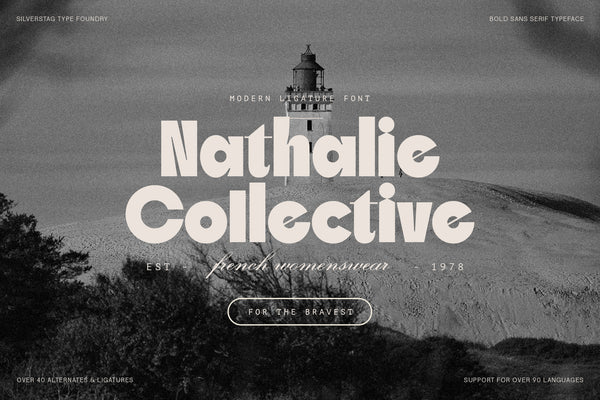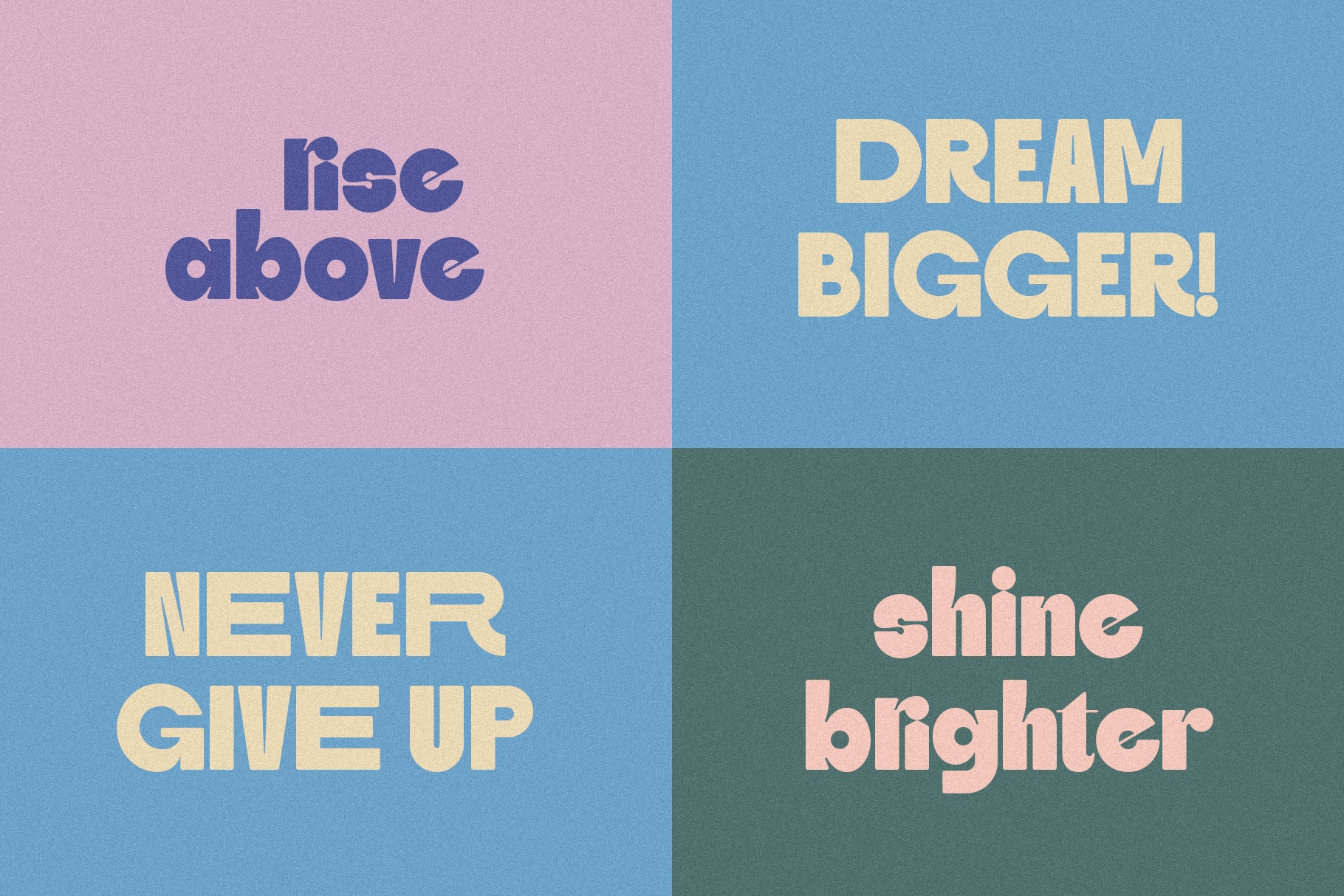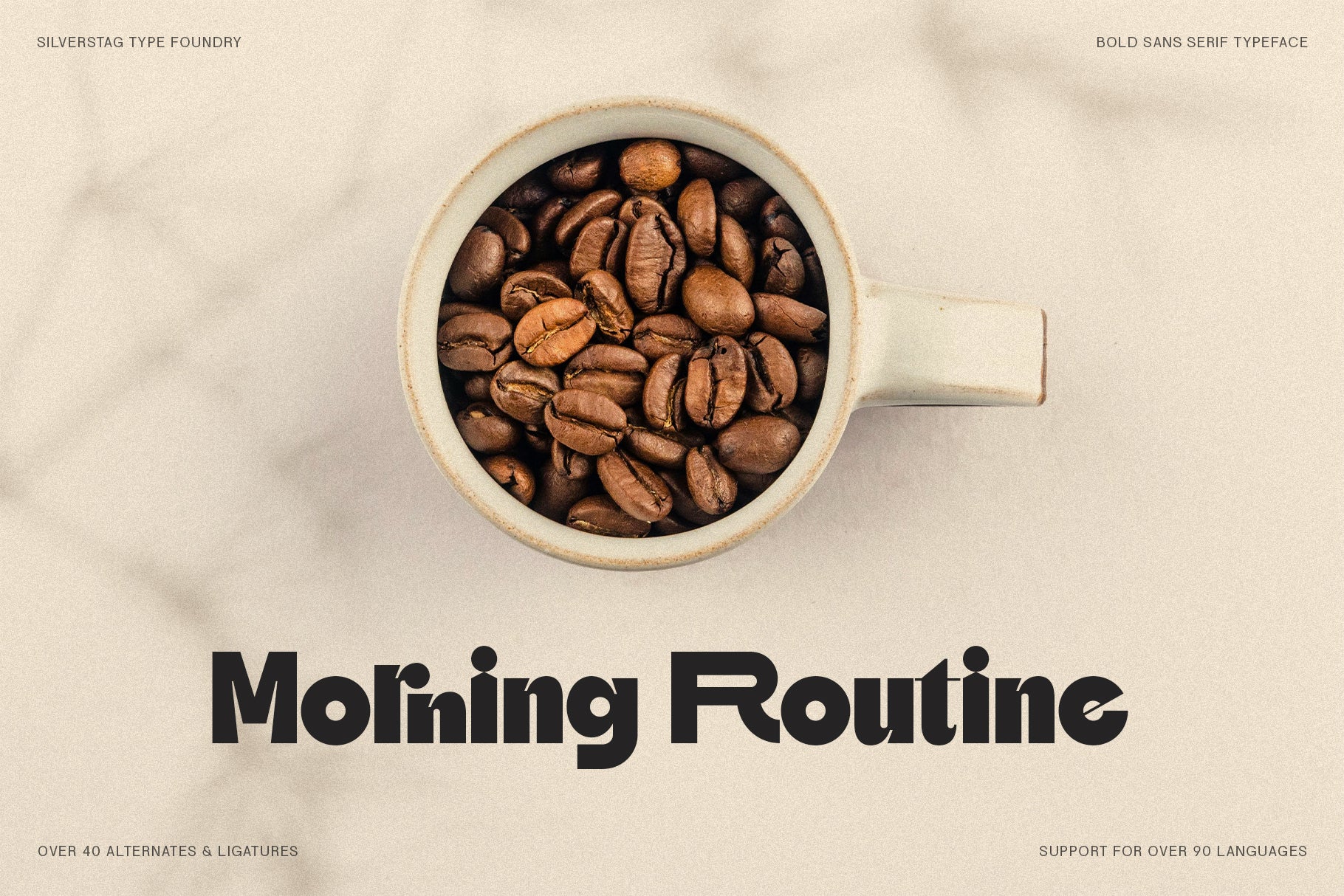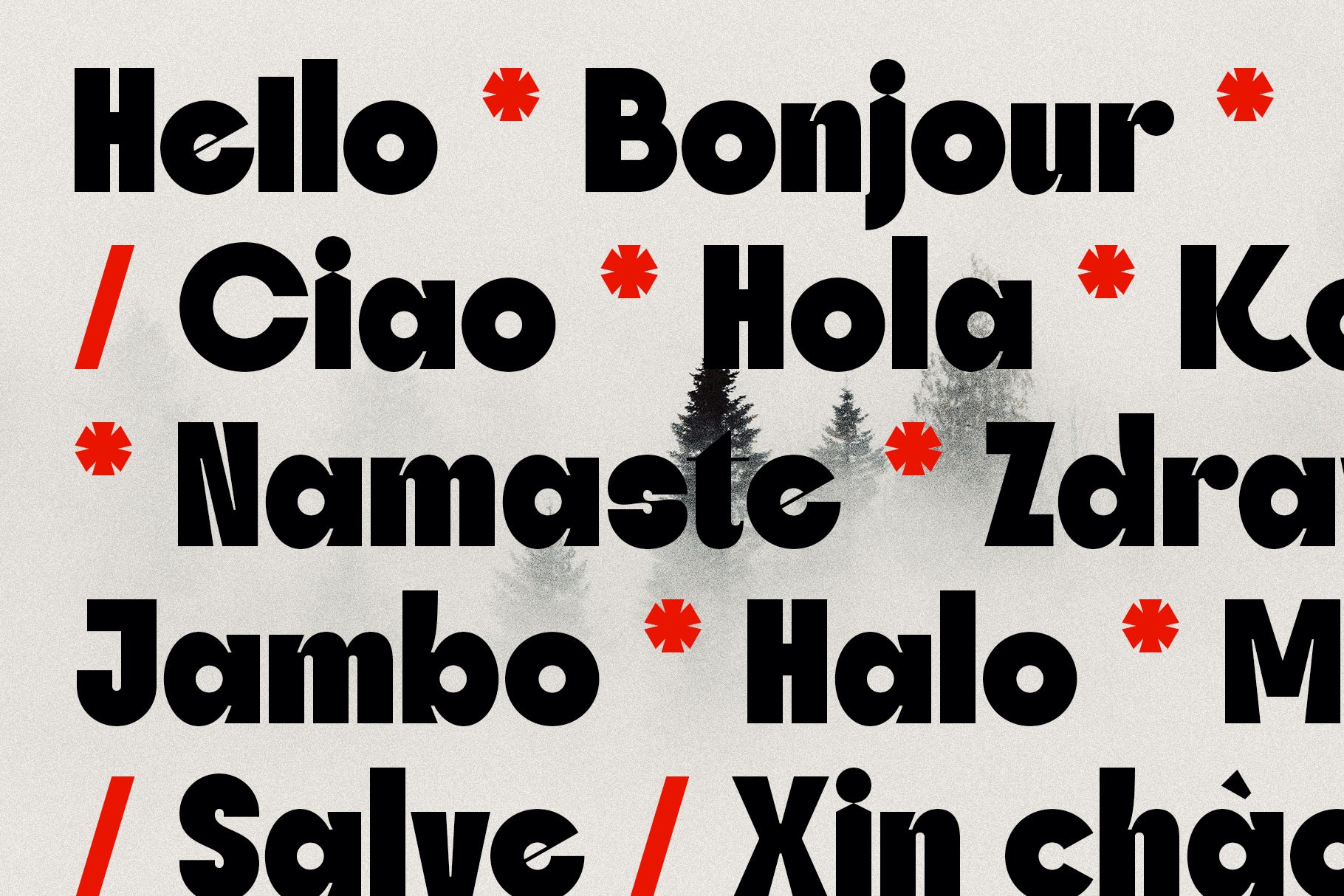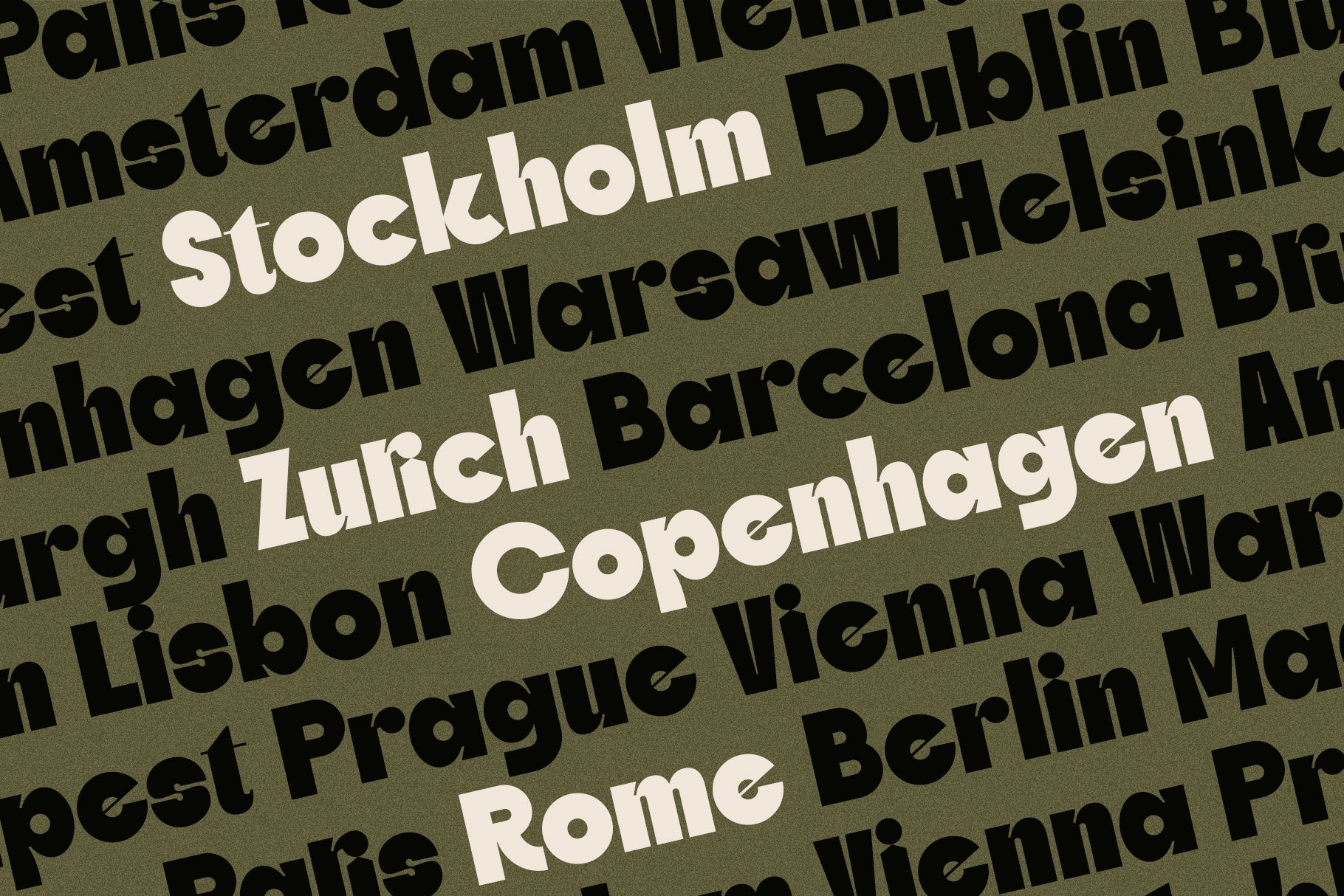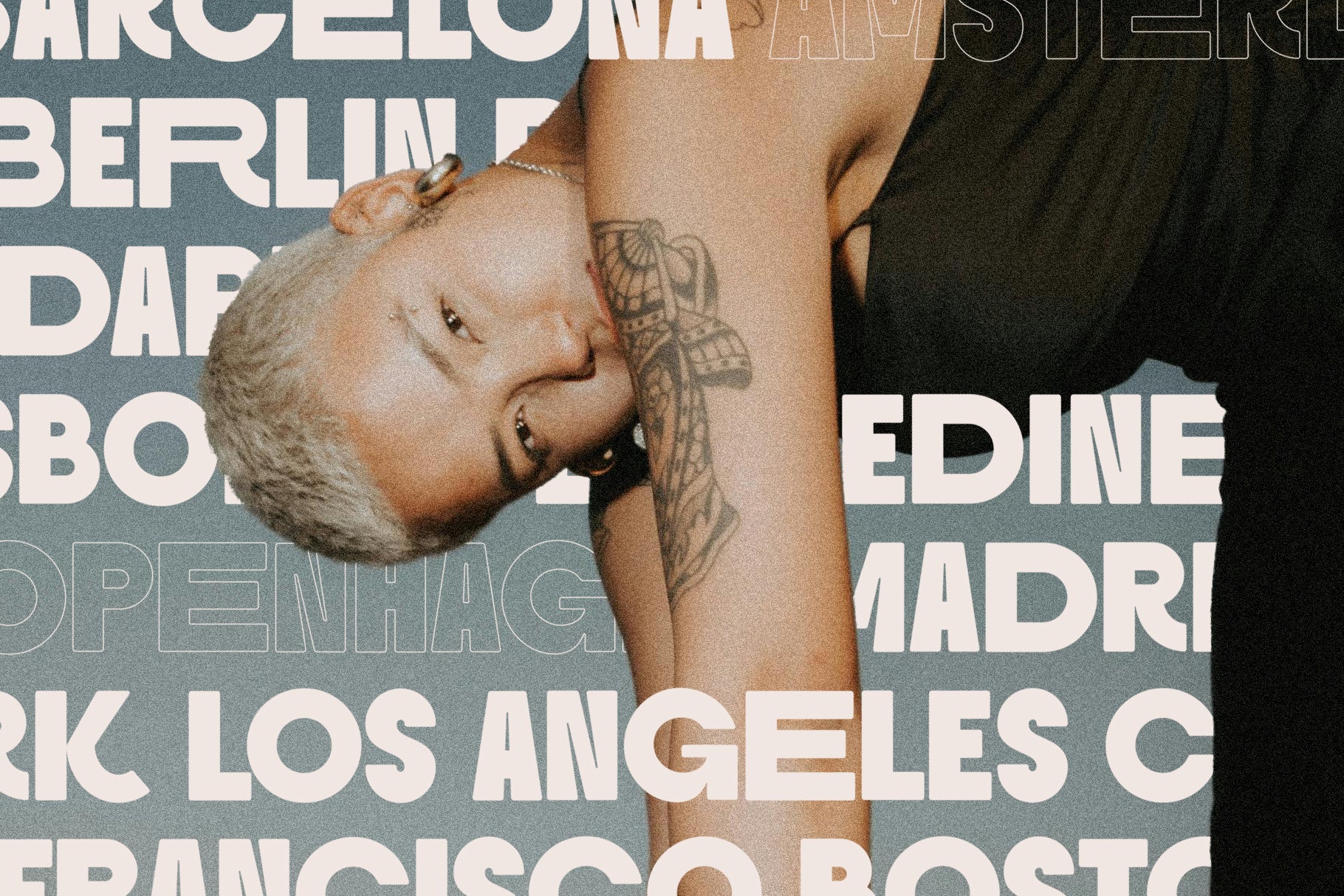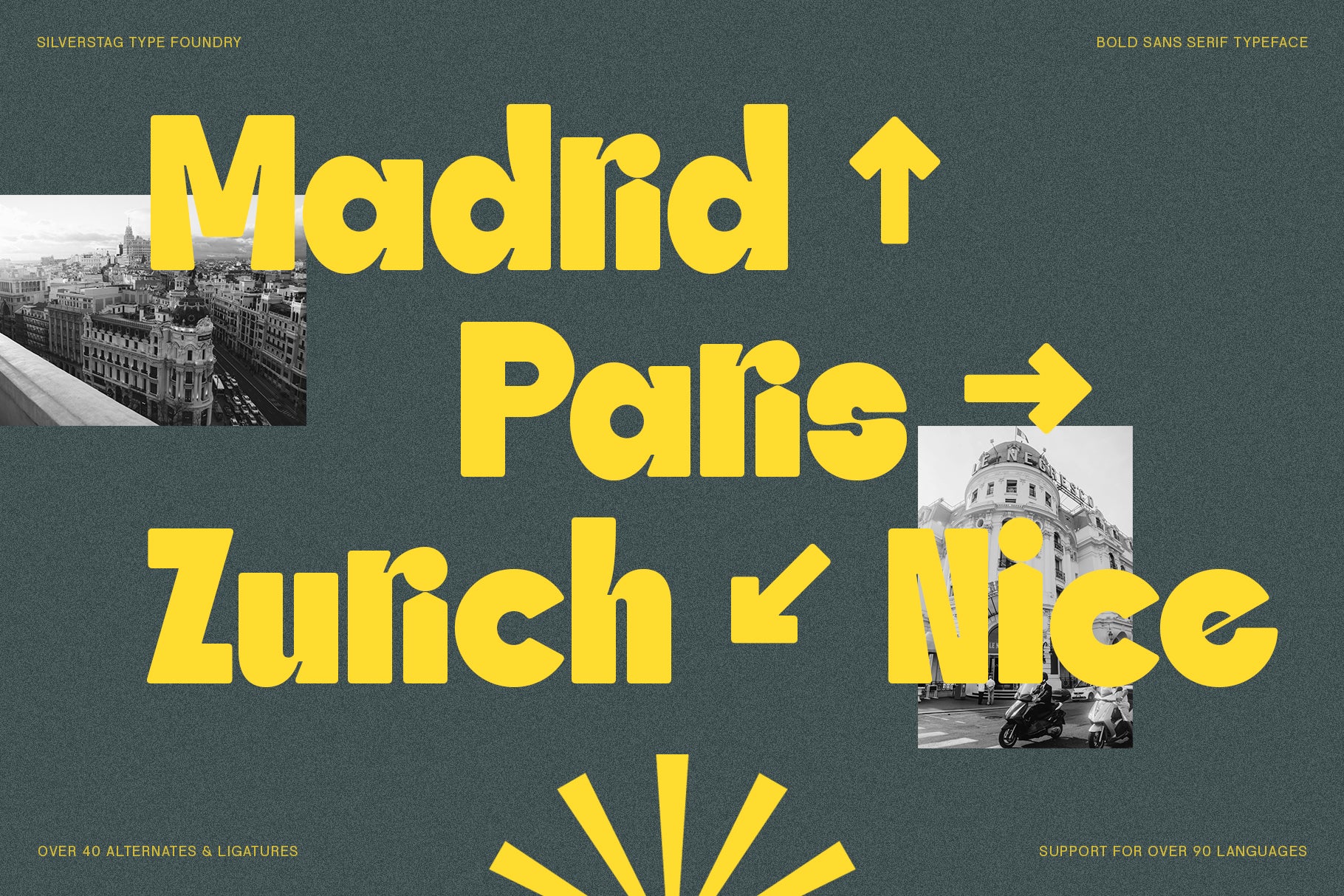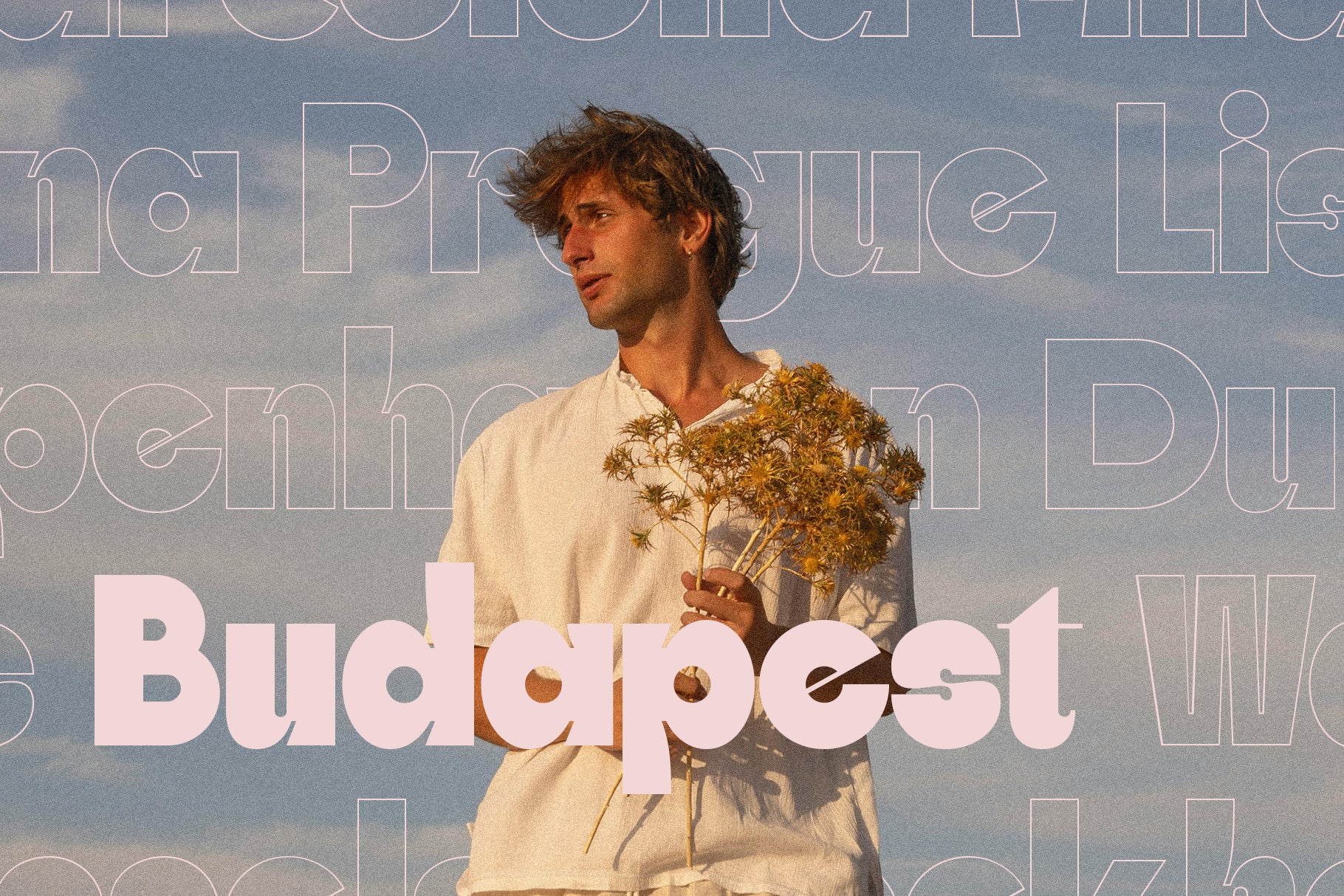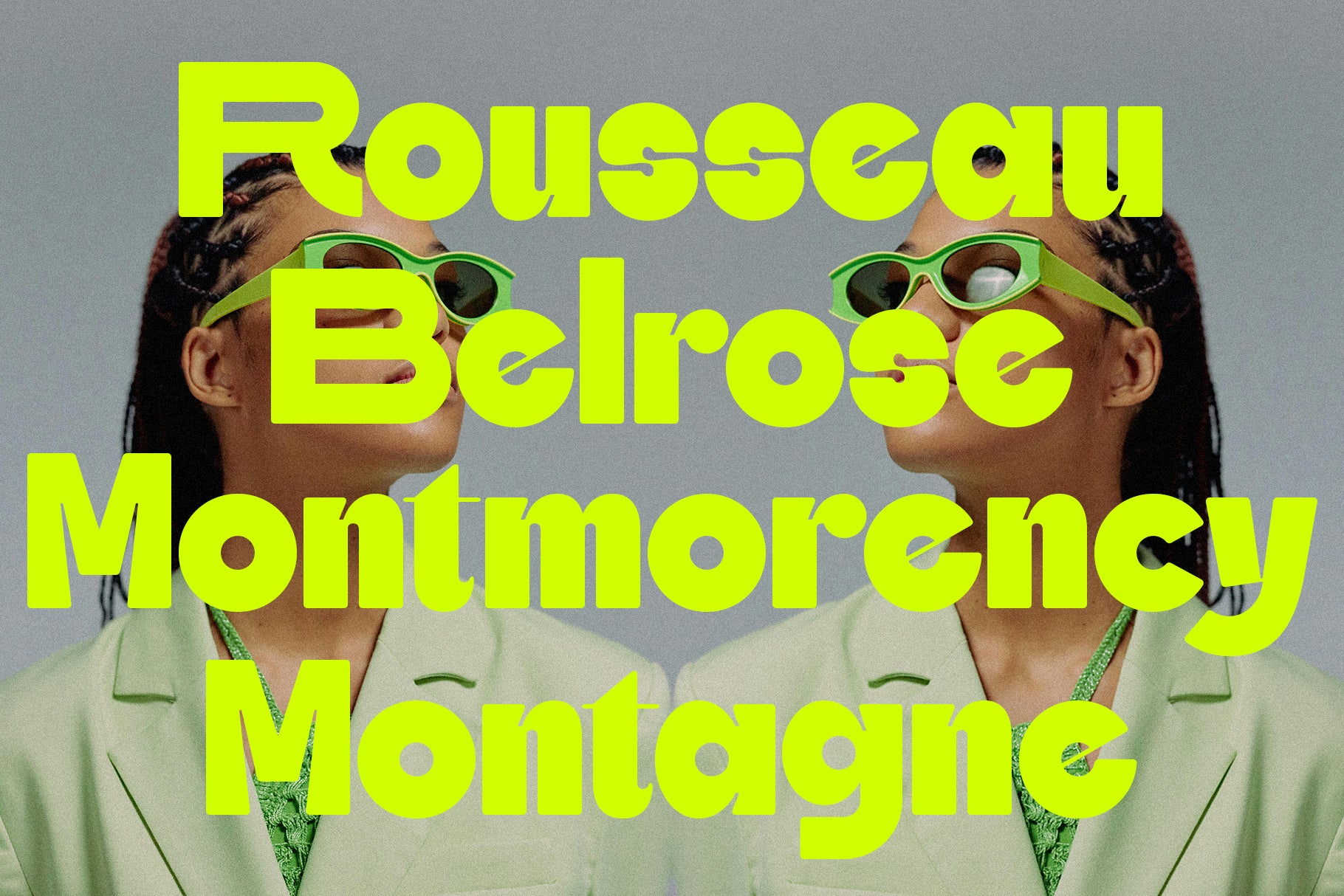
SLTF Skybury is a bold, modern sans serif typeface designed to make a confident impression. With clean lines, sharp geometry, and a striking presence, Skybury is ideal for designers who want to bring clarity and edge to their branding, editorial layouts, product packaging, and digital content.
This typeface comes in four versatile styles—Regular, Round, Regular Outline, and Round Outline—allowing you to tailor the tone of your typography from sleek and elegant to playful and bold. With 40+ ligatures and alternates, Skybury delivers custom flexibility while maintaining a strong, cohesive aesthetic.
Built for global communication, Skybury supports 90+ languages, ensuring your message connects across cultures and platforms.